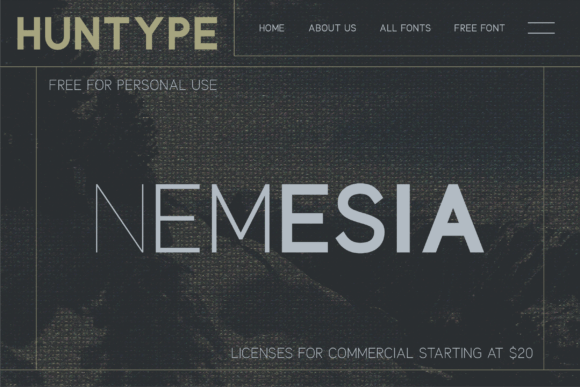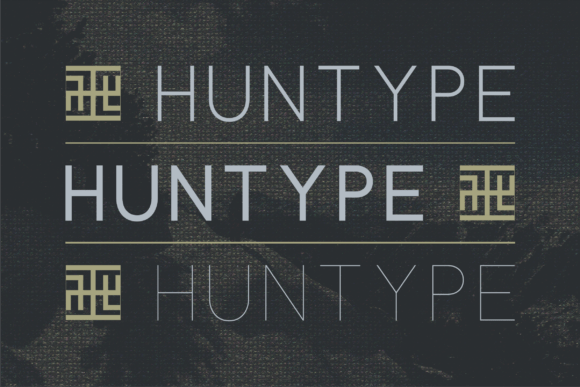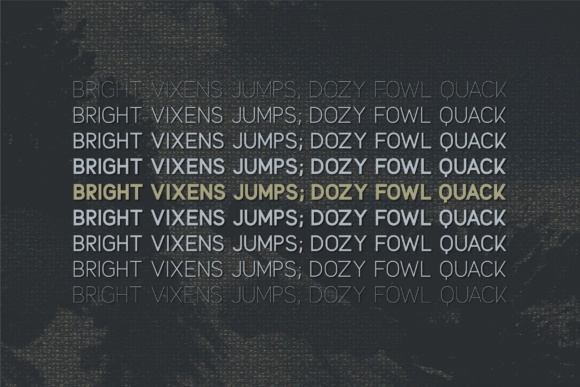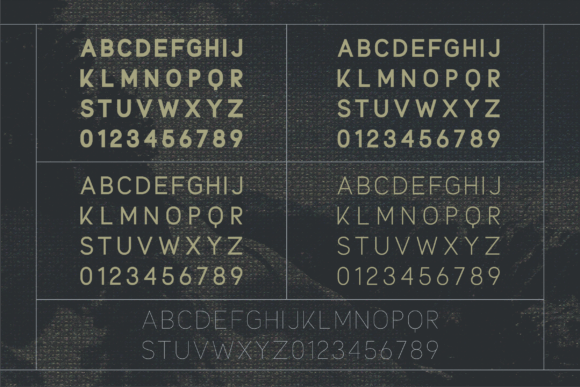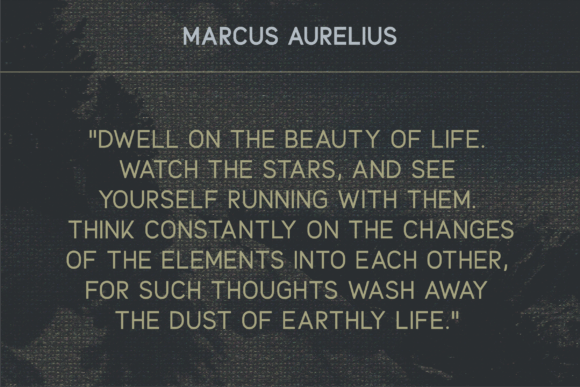
Introduction to Nemesia Font
As a designer, have you ever found yourself searching for the perfect font to elevate your creative project? Maybe you’re working on a campaign that requires a bold, eye-catching headline or a subtle, elegant background. Whatever the task, you know that the right font can make all the difference. And that’s where Nemesia Font comes in – a modern and versatile font family that’s about to become your new design best friend.
With its clean geometric forms and sophisticated aesthetic, Nemesia Font is the perfect resource for any design project. From websites with transparent backgrounds to brochures and posters, this font family is sure to deliver high-quality results every time. And the best part? It’s available for free download, making it an invaluable asset for designers of all levels.
Key Features of Nemesia Font
- High-quality design resource ideal for creative projects, with a unique and elegant aesthetic.
- Includes a comprehensive character set, covering a wide range of languages and characters.
- Perfect for use in various design applications, from logos and branding to digital art and creative projects.
Honest Review: Nemesia Font
I recently had the chance to work with the Nemesia Font, and I must say it’s been a game-changer for my creative project. The clean and modern design of this font has really elevated the overall aesthetic of my work.
- ✨ The Nemesia Font is incredibly versatile and can be used for a wide range of design projects, from headings to body text.
- ⚠️ The font may not be suitable for very small text sizes, as it can become difficult to read.
- ⚠️ The font family is relatively small, with only a few weights and styles available.
Overall, I’m thoroughly impressed with the Nemesia Font. Its high quality and flexibility make it a valuable addition to any designer’s toolkit. I highly recommend it for anyone looking for a clean and modern font to elevate their creative project.
Nemesia Font
The Nemesia Font is a high-quality, free design resource perfect for any creative project. With its elegant and sophisticated design, it’s ideal for creating visually appealing materials.
The Nemesia Font is ideal for:
– Creating invitations and event materials
– Designing business cards and letterheads
– Developing marketing materials and brochures
Alternatives to Nemesia Font
Pacifico is a beautiful, high-quality script font perfect for creative projects that require a touch of elegance. It’s ideal for designing invitations, wedding stationery, and other event materials. With its beautiful curves and subtle flair, Pacifico is a great alternative to Nemesia Font for designers looking for a more sophisticated look.
Comparison to Nemesia Font: Pacifico has a more classic and traditional feel, whereas Nemesia Font has a more modern and minimalist aesthetic.
Great Vibes is a stylish and versatile font that’s perfect for designers who need a high-quality font for their creative projects. It’s ideal for designing social media graphics, blog posts, and other online content. With its beautiful letterforms and transparent background, Great Vibes is a great alternative to Nemesia Font for designers who need a font that’s both modern and elegant.